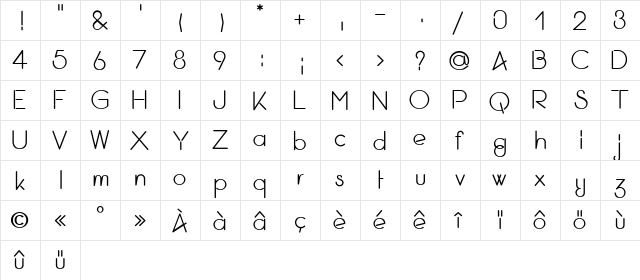
LaGdGsoft Regular Font Preview
LaGdGsoft Regular
Design Context for LaGdGsoft Typeface
LaGdGsoft is a composed and adaptable typeface that performs quietly and consistently across a wide range of design contexts.